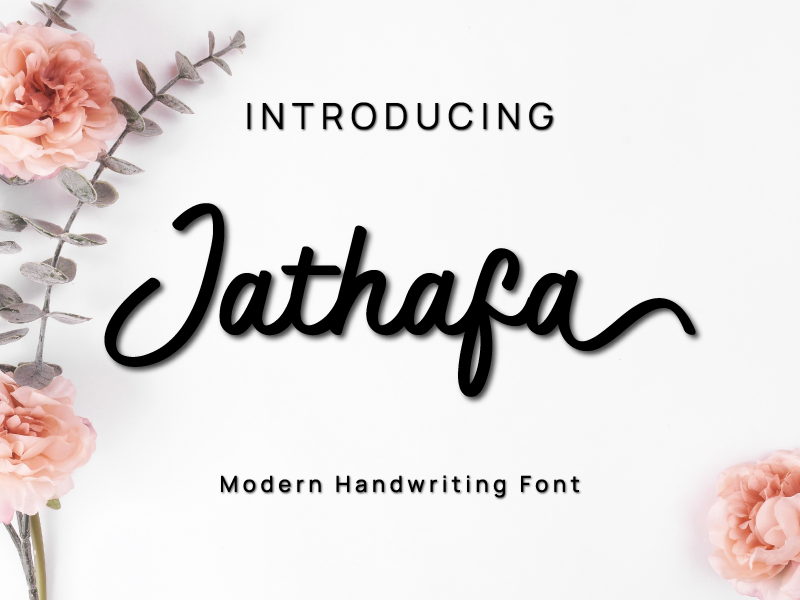
Font name: | Jathafa |
Author: | Gais Zaelani |
Note by Gais Zaelani | |
Jathafa is a cute and casual handwritten font with a very friendly feel. Whether you�re looking for fonts to make beautiful wedding invitations, beautiful artwork, interesting social media posts, and funny greeting cards. Jathafa also has several alternative letters that can make your project look modern, luxurious and classy. This font will turn any creative idea into a true work of art! NOTE: This demo font is for PERSONAL USE ONLY! But any donation are very appreciated. Paypal account donation: www.paypal.me/jprintstudio Link to purchase full version and commercial license : https://www.creativefabrica.com/product/jathafa/ref/237608/ And follow my Dribble for Update : dribbble.com/GaisZ Enjoy the font, Thank you !! |